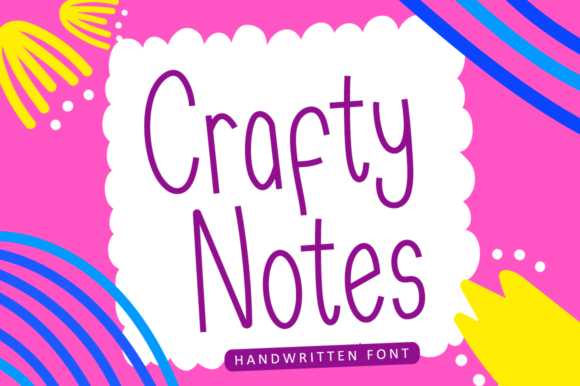
The Ultimate Guide to Crafty Notes Font: Elevate Your Designs with a Personal Touch
I’ll never forget the time I was working on a DIY project for a client’s baby shower invitation. I had the perfect design concept, but I just couldn’t find the right font to bring it all together. The client wanted something warm, inviting, and playful, but not too over-the-top. That’s when I stumbled upon Crafty Notes, a clean, thin, and simple handwritten font that instantly resonated with me. In this article, I’ll share my love for Crafty Notes, its unique features, and provide a comprehensive guide on how to make the most of this versatile font.
An Honest Review of Crafty Notes
What I Love About Crafty Notes ✨
- ✅ Clean and Simple Design: Crafty Notes boasts a natural, effortless look that’s perfect for a wide range of design projects, from DIY crafts to professional branding.
- ✅ Unique Character: This font has a distinct personality that sets it apart from more generic fonts. Its thin lines and subtle imperfections make it feel approachable and human.
- ✅ Highly Versatile: Whether you’re designing a greeting card, a blog post, or a social media graphic, Crafty Notes adapts seamlessly to different contexts and styles.
- ✅ Ease of Use: This font is incredibly easy to read and works well in both large and small sizes, making it perfect for body text or headings.
While Crafty Notes is an excellent font, it’s not without its quirks. For instance:
- ⚠️ Limited Extras: Crafty Notes doesn’t come with a vast array of extra glyphs or OpenType features, which might limit its use in more complex designs.
- ⚠️ May Not Suit All Brands: The font’s playful nature might not align with every brand’s tone or personality, particularly those aiming for a more formal or corporate image.
The Story Behind Crafty Notes
Crafty Notes was designed with the creative hobbyist in mind. Its creator, a passionate typographer, aimed to craft a font that would inspire makers, crafters, and small business owners to add a personal touch to their designs. With its clean lines and natural look, Crafty Notes quickly gained popularity among designers looking for a font that felt both modern and approachable.
| Font Name | Crafty Notes Font |
| Author | illushvara |
Q: Is Crafty Notes suitable for body text?
A: Yes, Crafty Notes is highly legible and can be used for body text, especially in digital formats or print materials where readability is key.
Q: Does Crafty Notes support OpenType features?
A: While Crafty Notes may not offer an extensive range of OpenType features, it does come with basic character sets and may include some stylistic alternates, depending on the version you have.